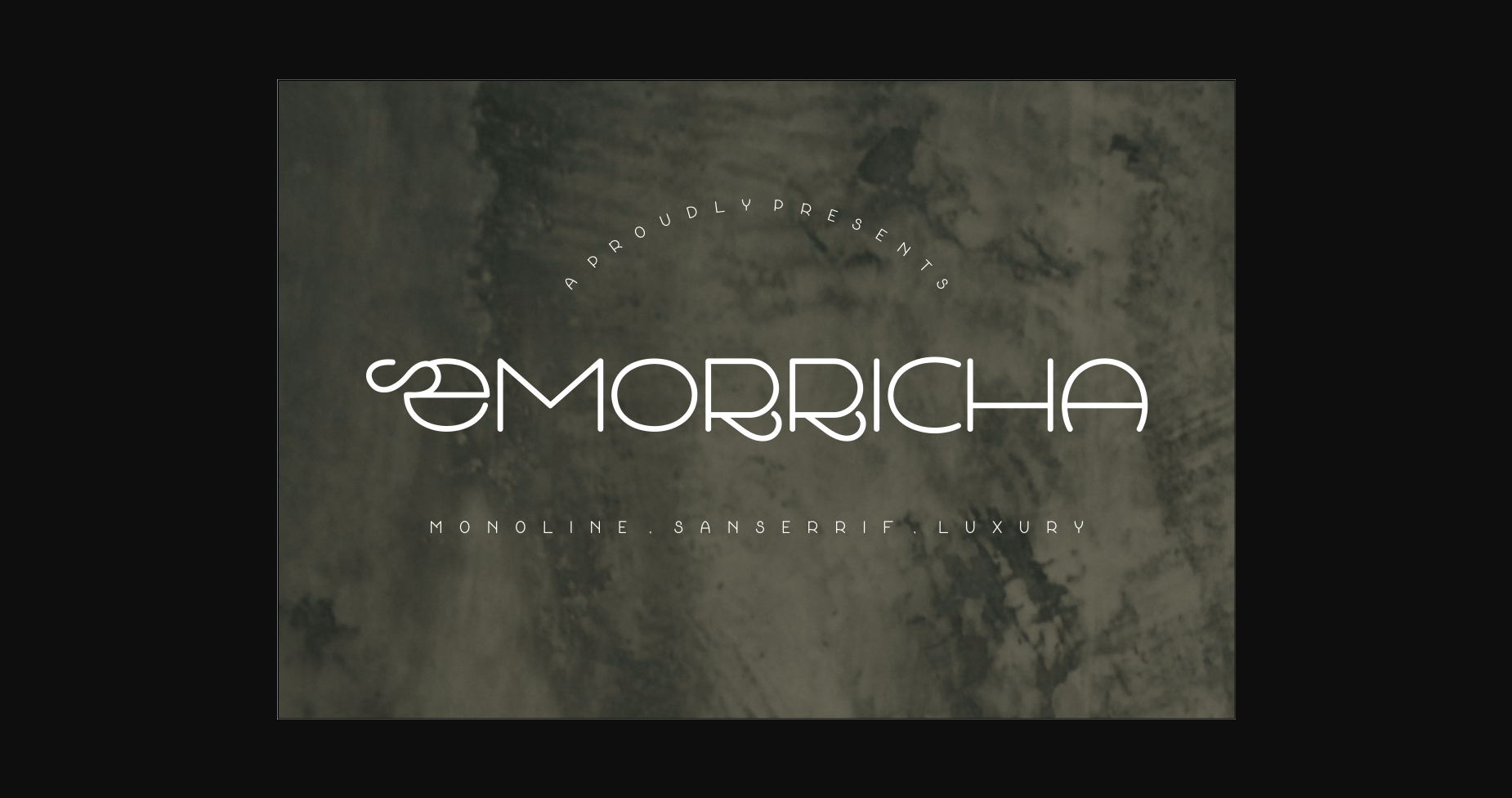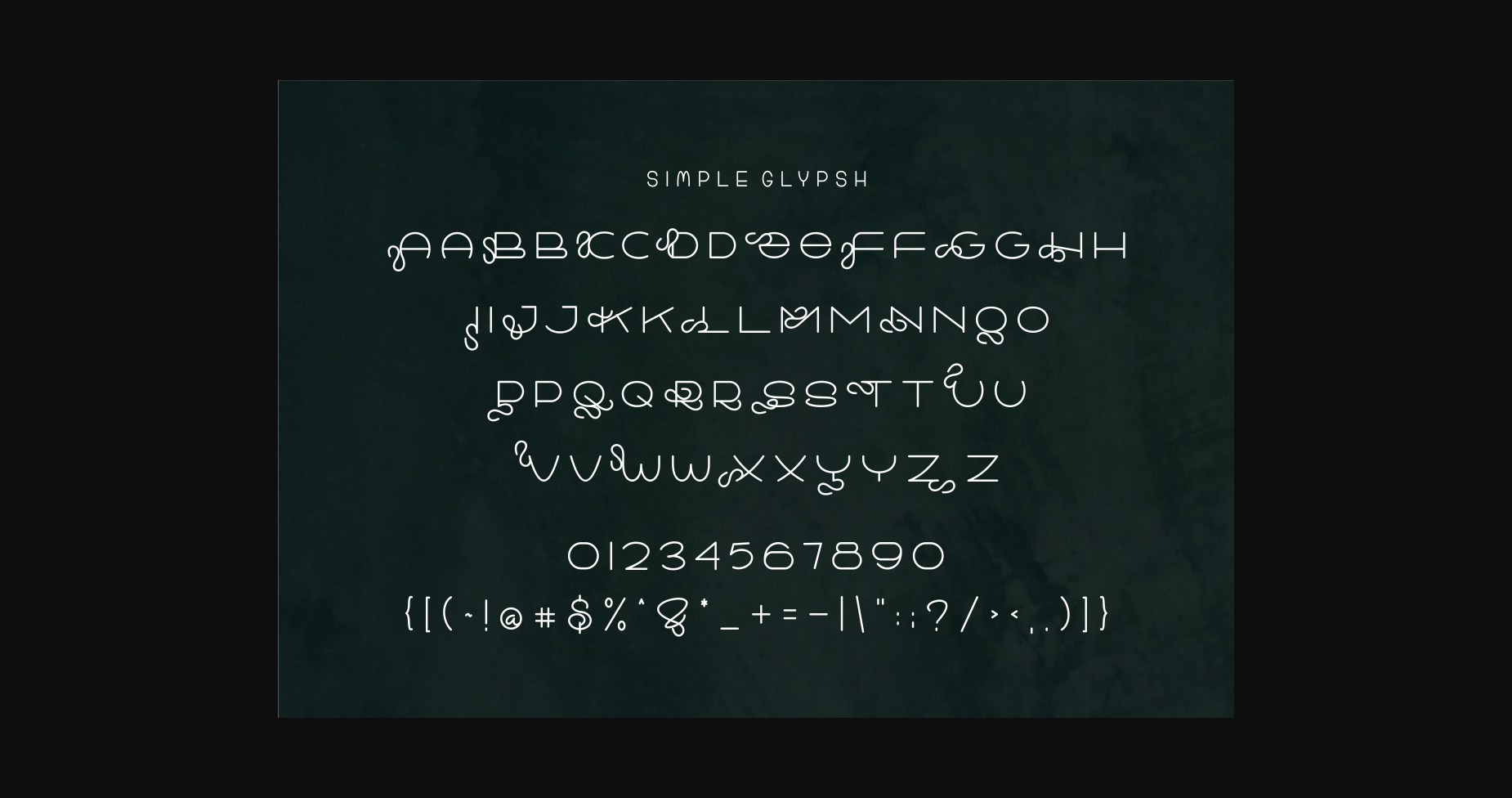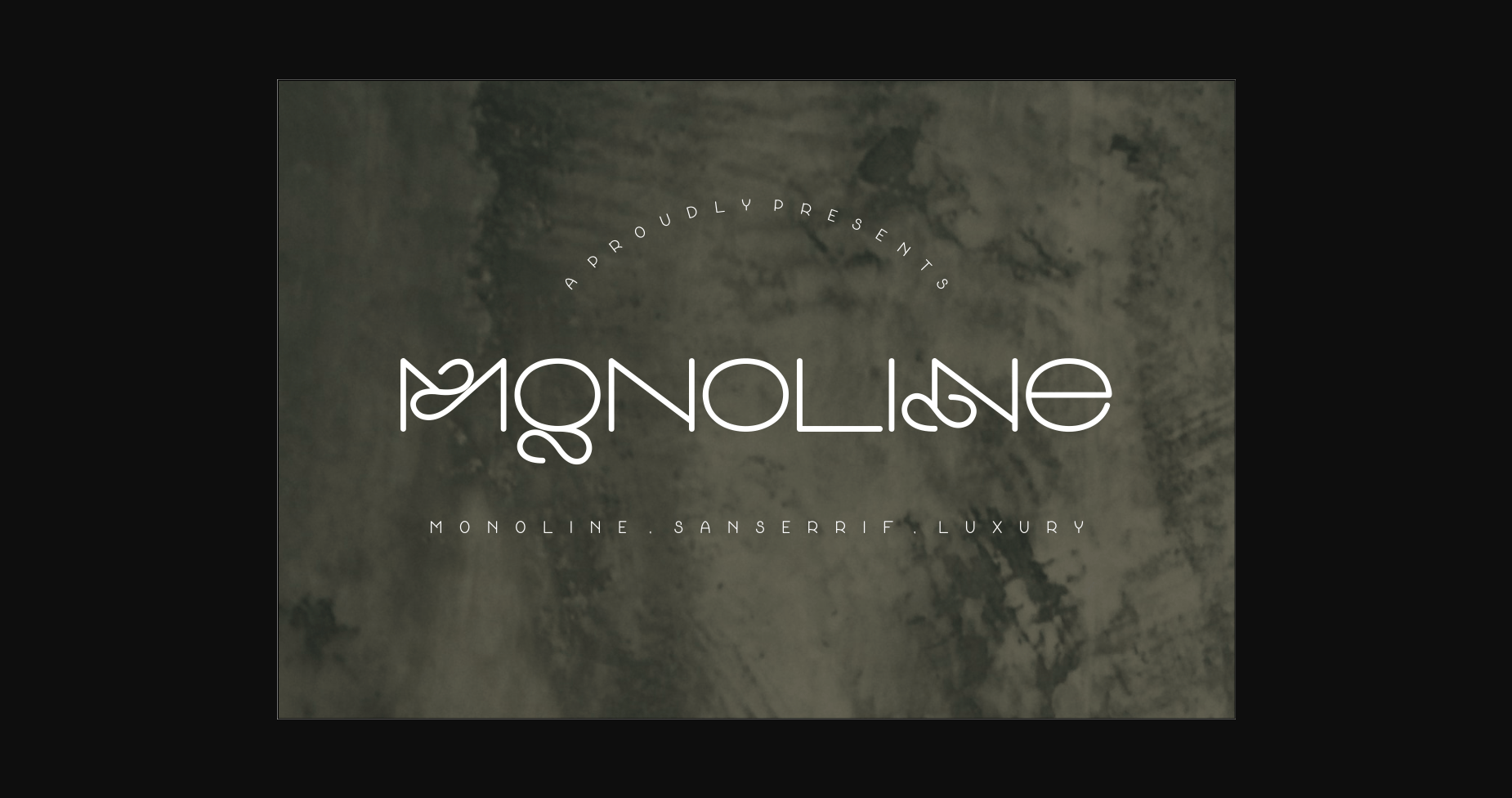
HomeSans Serif FontsEmorricha Font Sans Serif Fonts Emorricha Font FacebookXPinterestWhatsApp 1 of 5 ... Emorricha Font Poster 2... Emorricha Font Poster 3... Emorricha Font Poster 4... Emorricha Font Poster 5... About Emorricha Font Emorricha is an exquisite and refined sans serif font. With its stylish and elegant character, it can enhance your creative ideas, adding an extra touch of luxury and sophistication. DOWNLOAD NOW People also explored Batrisyia Script Font Sinthya Font Astro World Font Hilwen Font Crotches Font Sandreya Font Mountain Font Melissa Adalyn Font Yemila Font 270 0 TagsEmorricha Font Previous articleNigma FontNext articleFortman Font LEAVE A REPLY Cancel reply Comment: Please enter your comment! Name:* Please enter your name here Email:* You have entered an incorrect email address! Please enter your email address here Website: Save my name, email, and website in this browser for the next time I comment. Personal Use Free Romansya Personal Use Free Read more about this font Predators Personal Use Free Read more about this font Stone Garden Personal Use Free Read more about this font Dakwart Letter Personal Use Free Read more about this font BLOG Free vs Paid Fonts: Why Investing in Premium Fonts Is Worth It Free vs Paid Fonts: Why Premium Fonts Are Worth It in 2025 The debate of free vs paid fonts continues in the design world. While... 5 Fonts That Will Dominate Design Trends in 2026 Top 7 Google Fonts Alternatives for Faster and Privacy-Friendly Web Design (2025) Best Fonts for T-Shirt Design – Top 2025 Picks